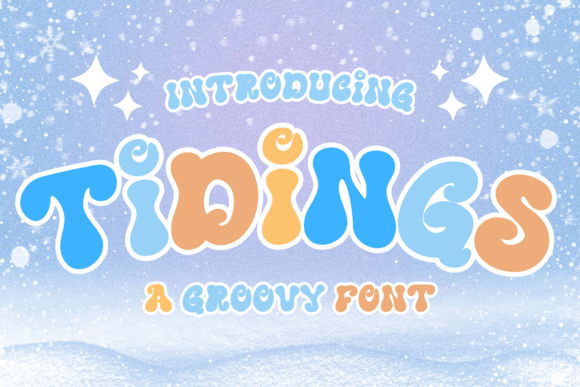
Introducing Tidings Font, the ultimate retro groovy display font that will take your designs to the next level! Created by the talented Brown Cupple Fonts, Tidings Font is here to add a touch of playfulness and authenticity to all your projects.
Are you tired of using the same old boring fonts for your web page design? Look no further! Tidings Font is the best font for web page design, guaranteed to captivate your audience and leave a lasting impression. With its unique retro style, this font will make your website stand out from the crowd and elevate your brand to new heights.
Whether you're working on a blog post, creating a stunning logo, designing a brand identity, or even crafting eye-catching ads, Tidings Font is your go-to choice. Its versatility knows no bounds, making it the perfect companion for all your creative endeavors.
But it doesn't stop there. Tidings Font is also ideal for adding a personal touch to invitations, greeting cards, planners, photo albums, decorations, and more. Let your imagination run wild and watch as Tidings Font brings your ideas to life with its captivating charm.
What sets Tidings Font apart from the rest is its ability to evoke a sense of nostalgia while still remaining fresh and modern. Its retro vibes will transport your audience back in time, creating a nostalgic connection that resonates with their emotions. This font is not just a tool for design, but a gateway to a magical journey down memory lane.
With Tidings Font, the possibilities are endless. Dive into a world of creativity and let this font inspire you to create designs that are truly one-of-a-kind. Its eye-catching appeal will instantly grab attention, drawing people in and leaving them mesmerized by its unique charm.
Don't settle for mediocrity when you can have excellence. Choose Tidings Font, the font that will make your designs unforgettable. Get ready to wow your audience and make a statement that they won't be able to resist. It's time to embrace the retro groove and let Tidings Font be your secret weapon for design success.